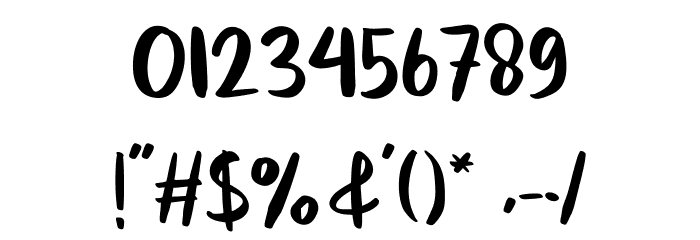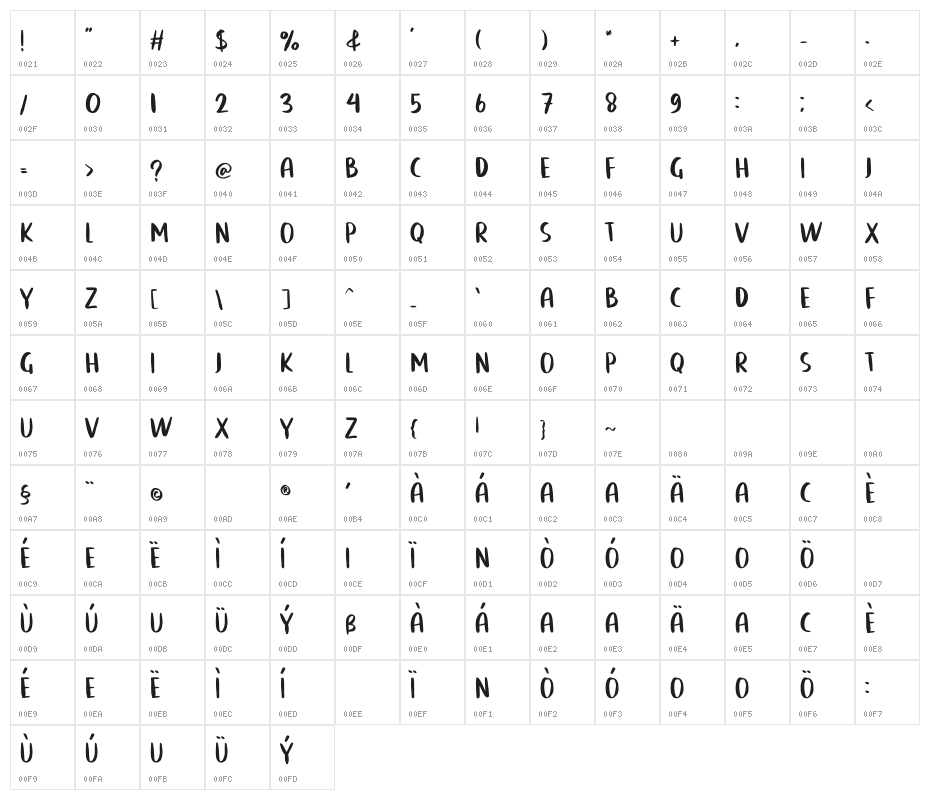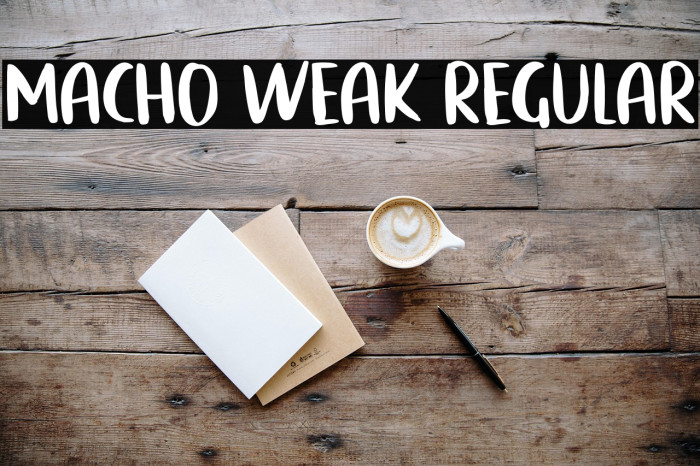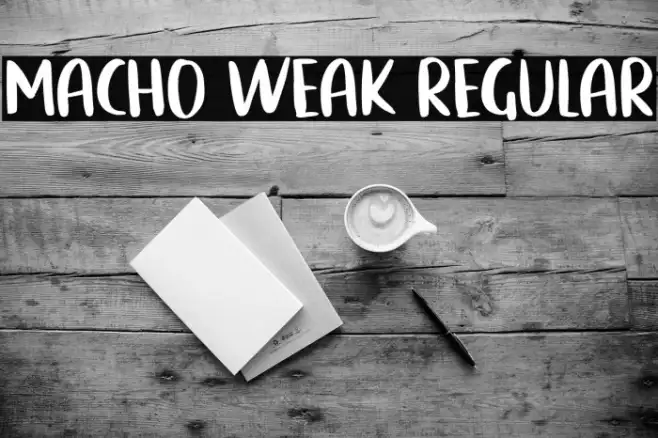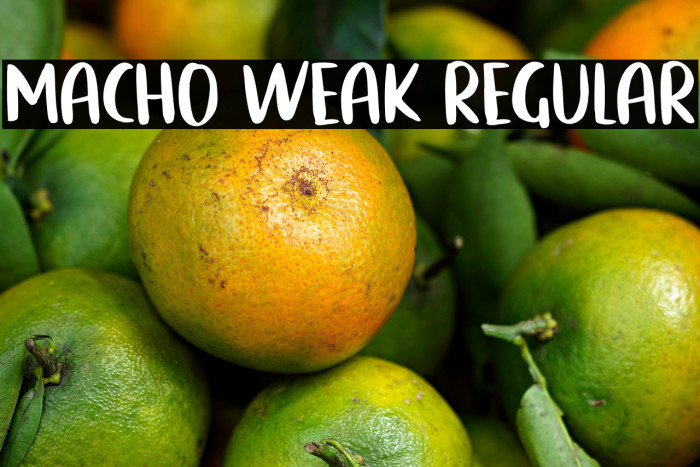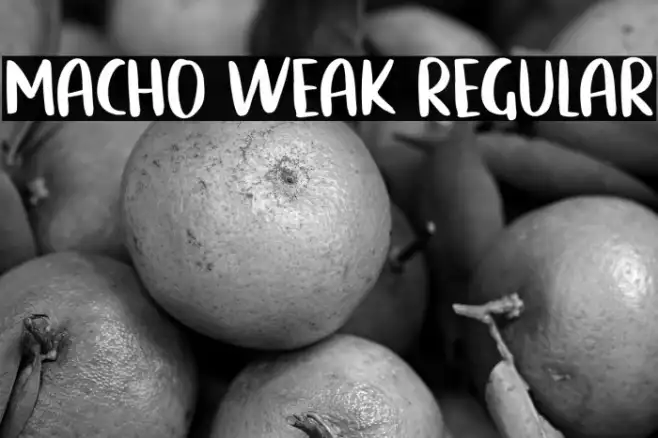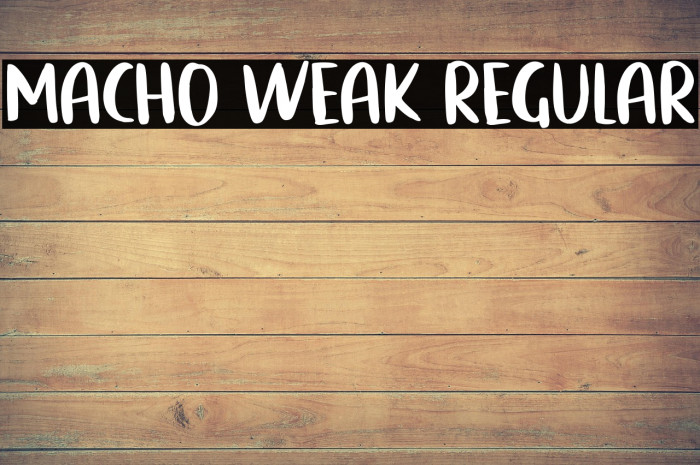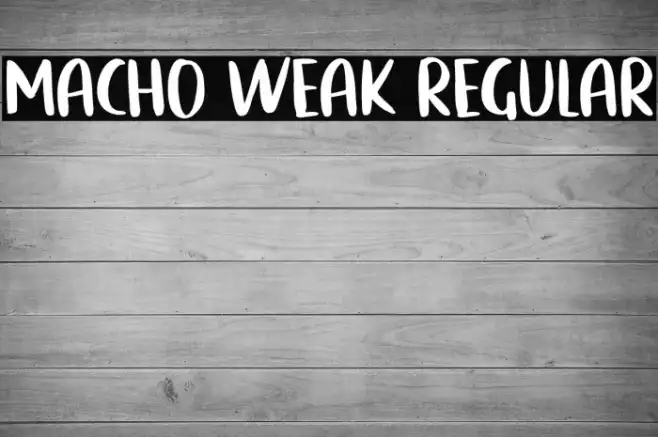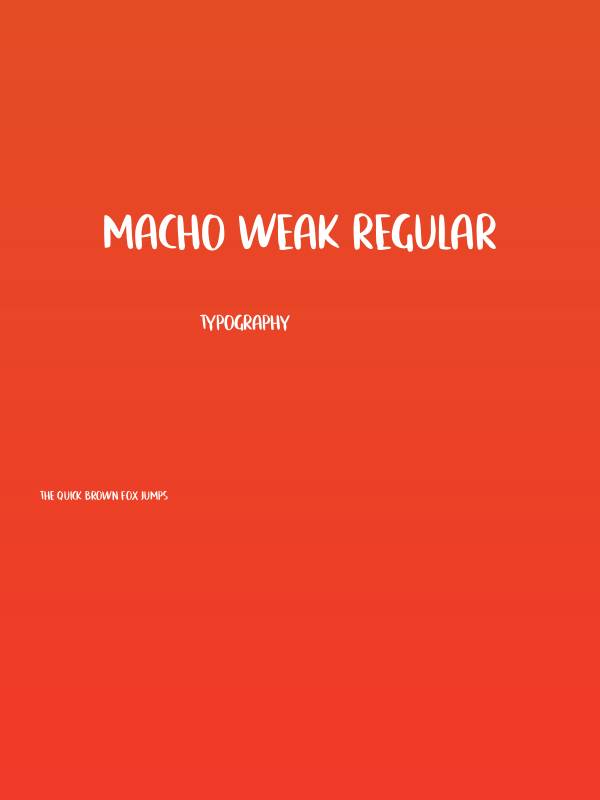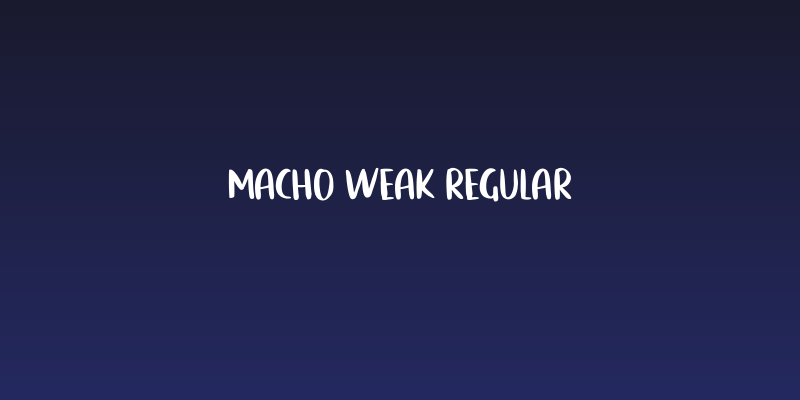
Macho Weak Regular Font
Macho Weak Regular Description
This font features a bold, handwritten style with a playful and casual appearance. The characters are rounded and slightly irregular, giving it a friendly and approachable feel. The uppercase and lowercase letters maintain a consistent style, with smooth curves and a moderate stroke width. The numbers and special characters complement the alphabet with the same informal aesthetic, making it versatile for various design needs. Its unique charm lies in its ability to convey a sense of warmth and personality, making it suitable for creative and informal projects.
| Use Case | Logos, Headlines, Informal text |
| Proposed Projects | Ideal for greeting cards, children's books, casual branding, and social media graphics. |